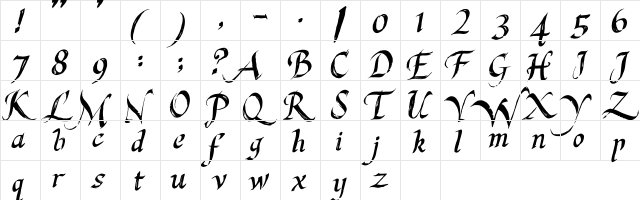
Last King Quest Regular
| Designer | Imagex |
Design Context for Last King Quest Typeface
Last King Quest is a composed and adaptable typeface that performs quietly and consistently across a wide range of design contexts.
Pro Tip: Pair Last King Quest with a font of contrasting weight or personality to build a more expressive typographic hierarchy.